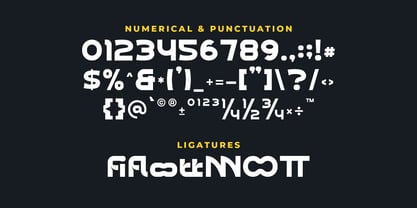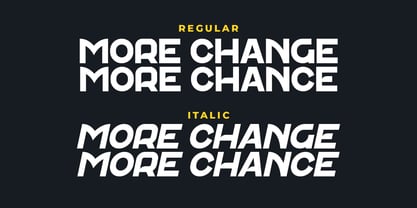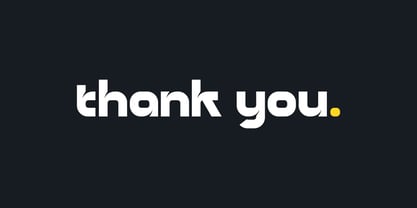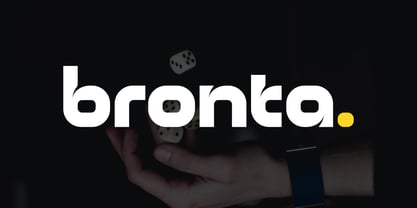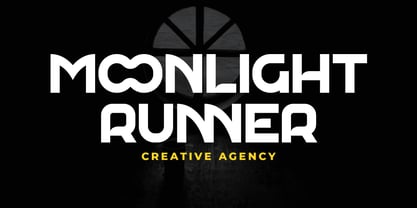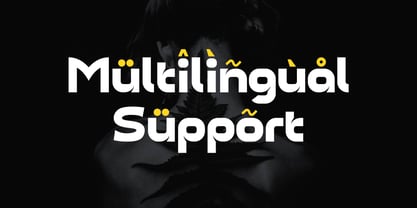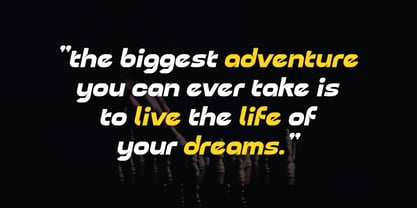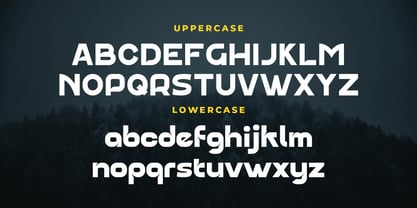
Bronta
La familia tipográfica Bronta fue diseñada por Iwan Alwan y publicada por Artiveko. Bronta contiene 2 estilos y opciones de paquete familiar.
Bronta is a modern logo font designed to make bold brand statements. With clean lines, geometric balance, and sleek curves, Bronta delivers a fresh and confident look that's ideal for logos, headlines, packaging, and social media graphics.
Its minimalist letterforms reflect modern aesthetics, yet subtle quirks give it a distinctive edge—making your designs stand out in a crowded visual space. Moreover, Bronta works beautifully across digital and print formats, giving you flexibility in any project.